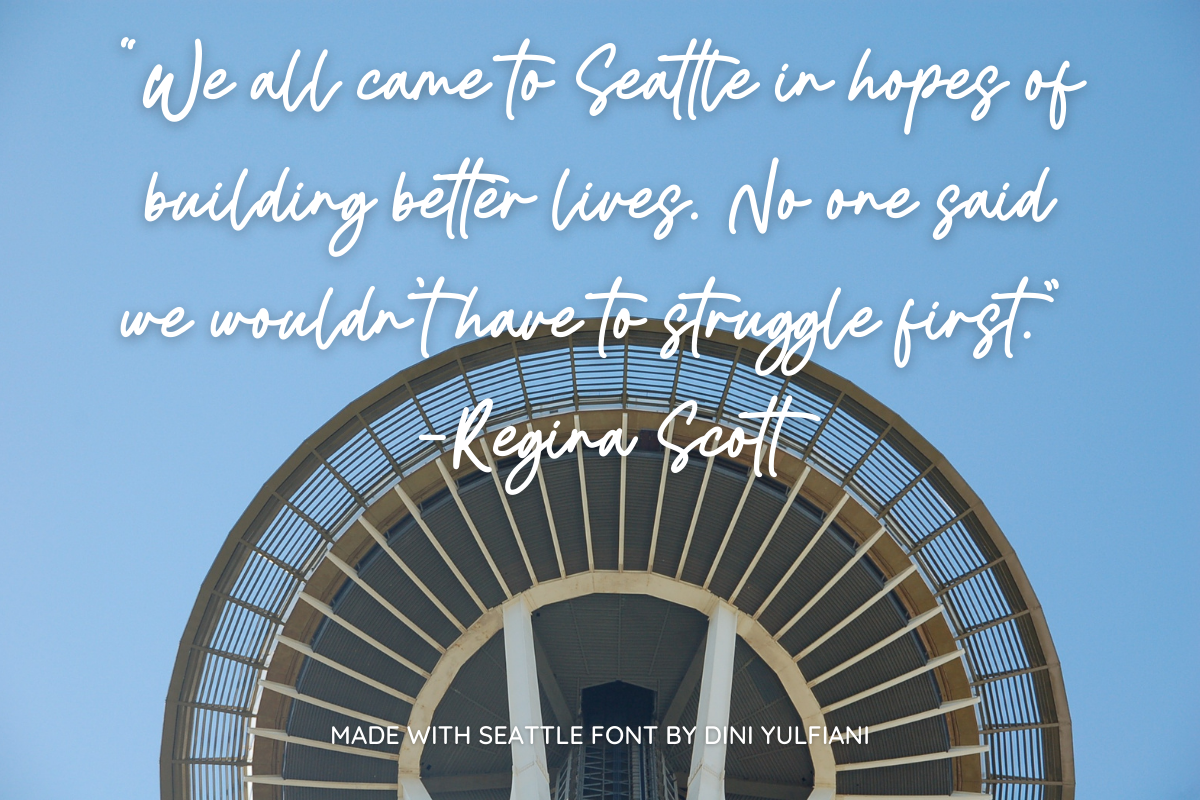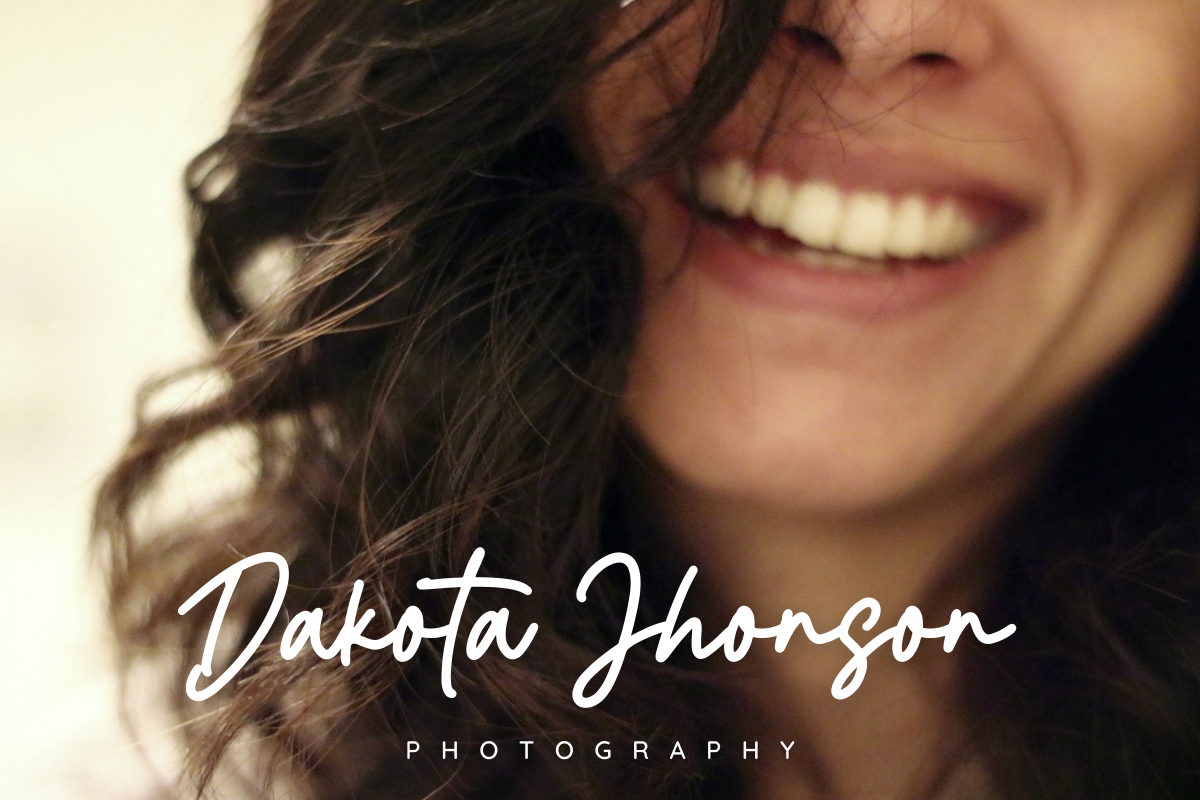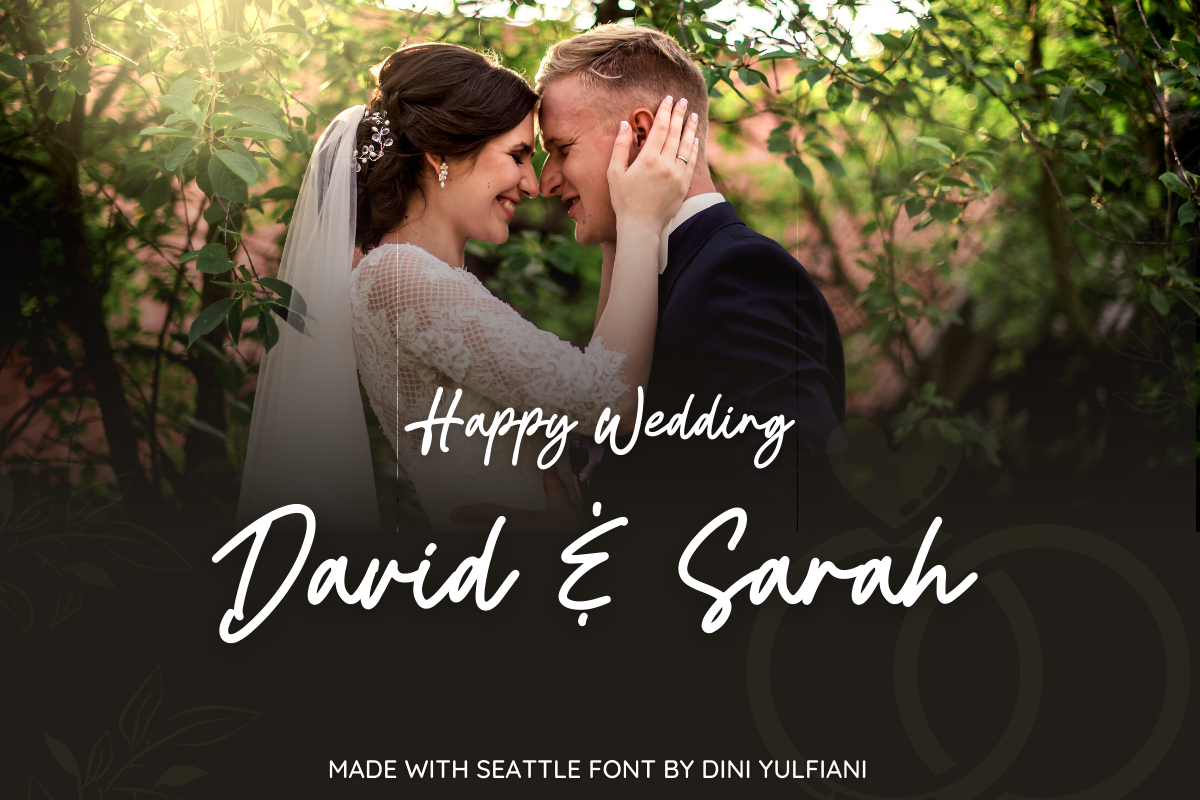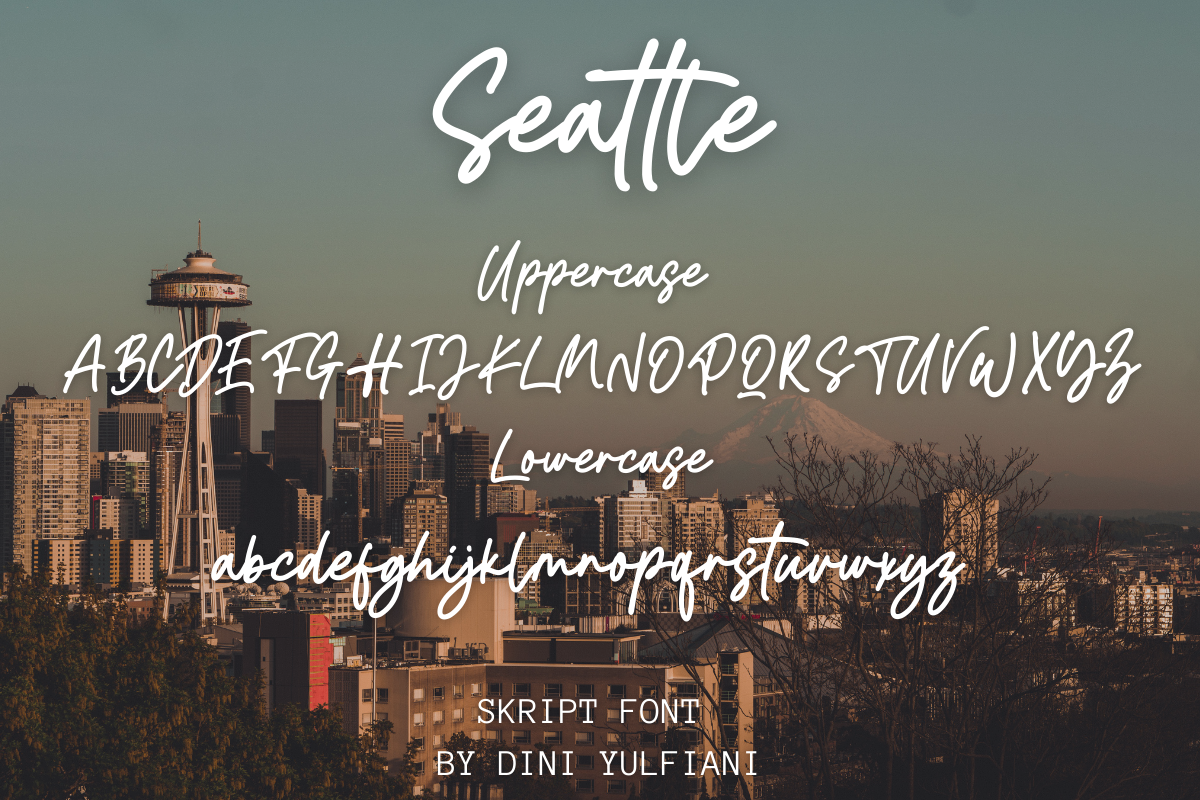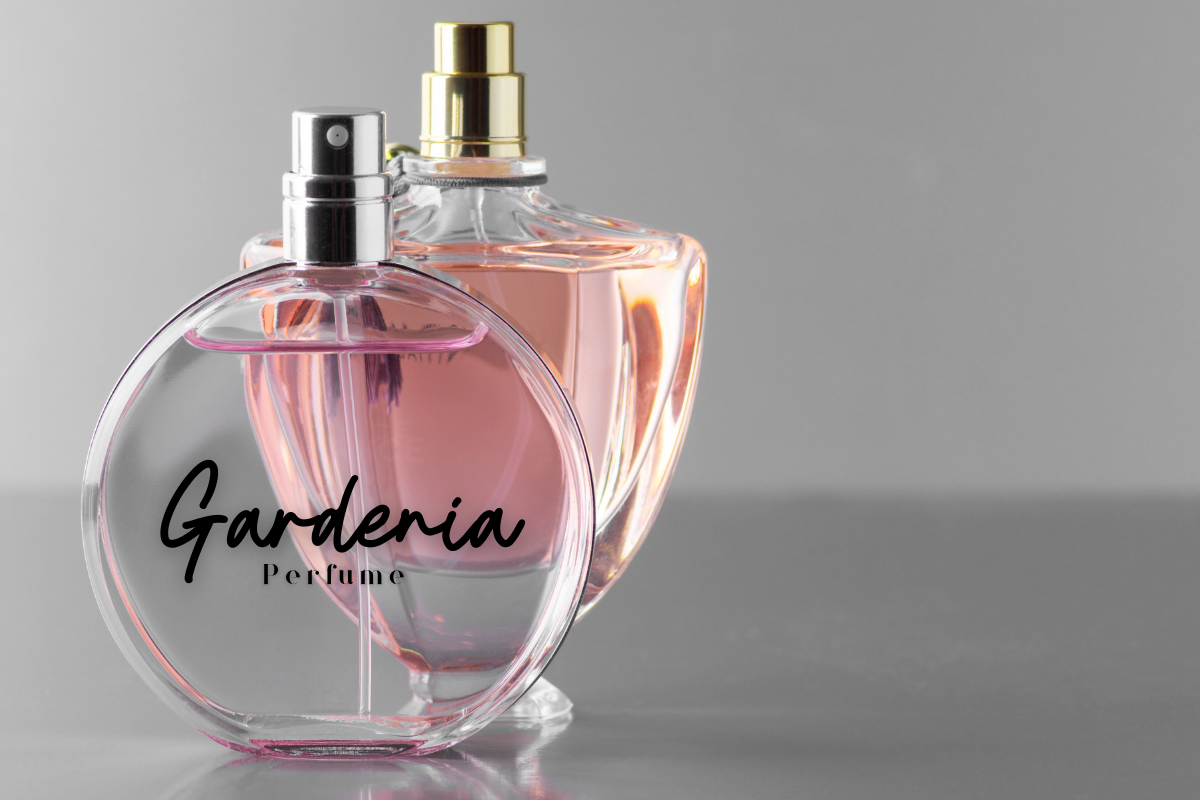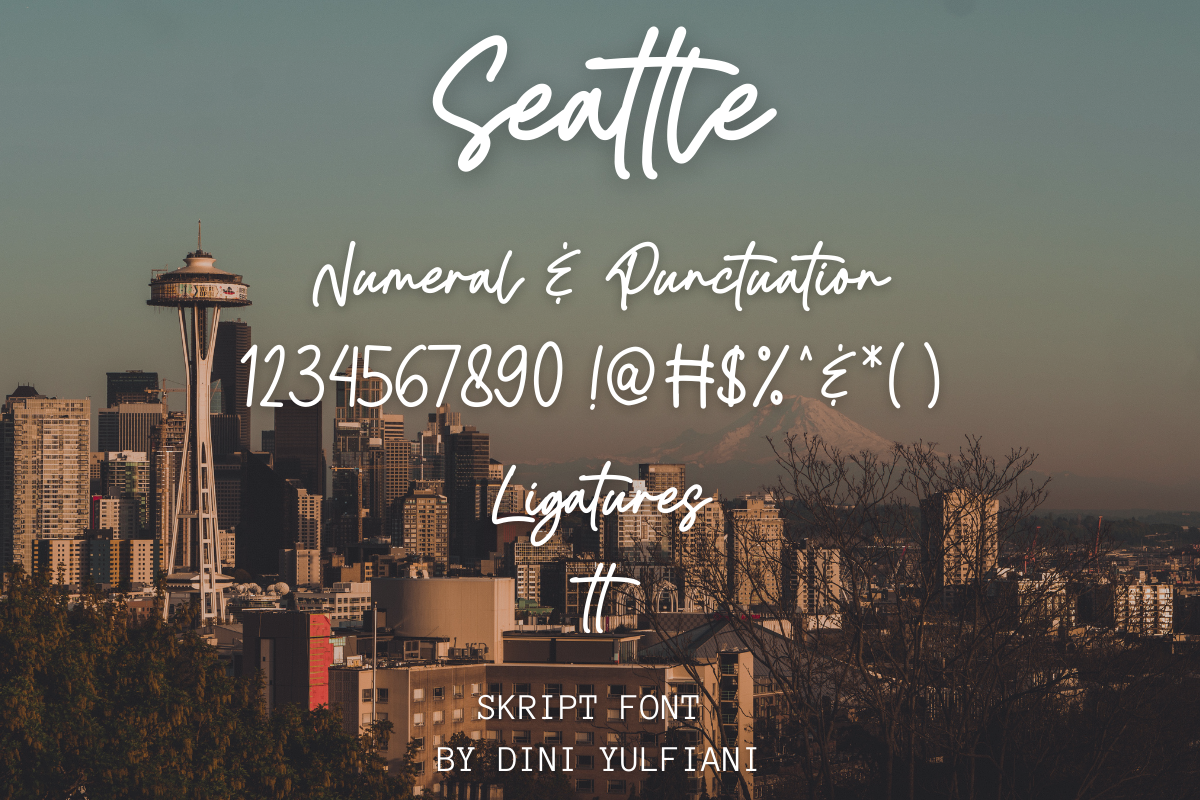
Seattle
This is my new font, it's called Seattle. This font is handwritten font. it's very suitable to be applied in your design, also it's perfect for logo, branding, title, social media post, advertisements, product packaging, product designs, label, photography, special event, web design, etc.
Seattle (Uppercase, Lowercase)
Numeral & Punctuation